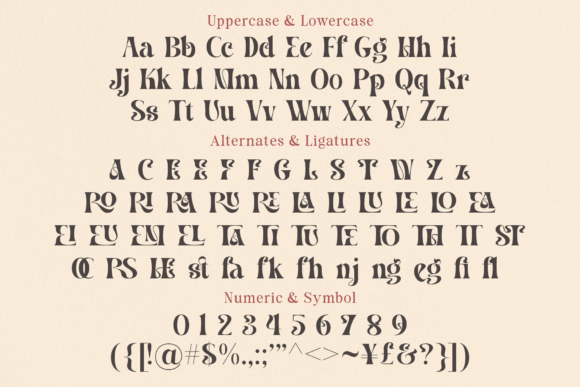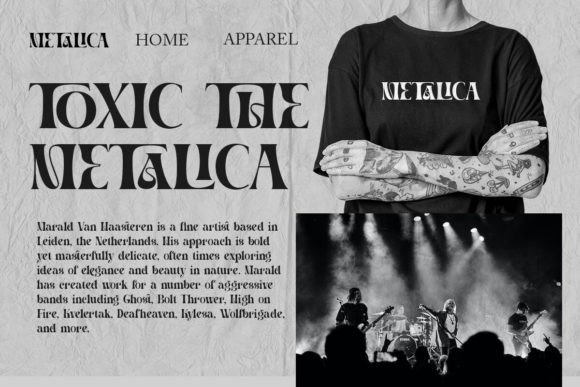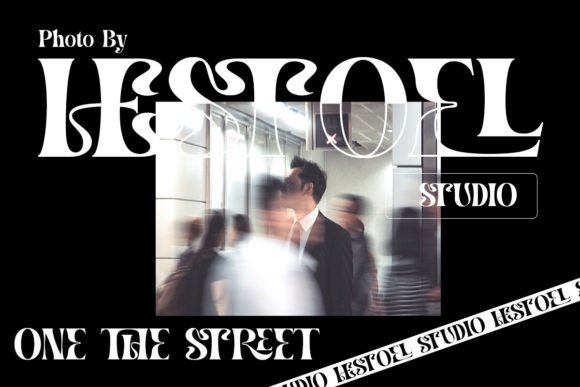
Introduction to Rostema Font
Introducing Rostema, a captivating blackletter serif display font that seamlessly bridges the gap between tradition and modern design.
This typeface is a testament to the timeless beauty of blackletter fonts, infused with a contemporary twist that makes it perfect for a wide range of creative applications Whether you’re designing posters, branding materials, invitations, or any other creative endeavor that demands a bold and distinctive typeface, Rostema is your go-to font.